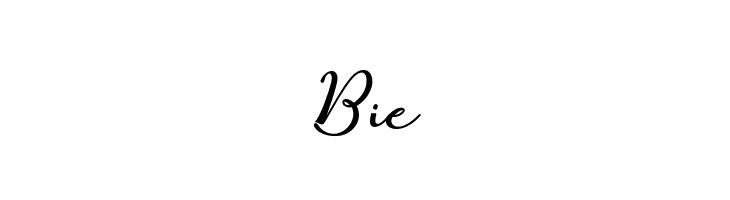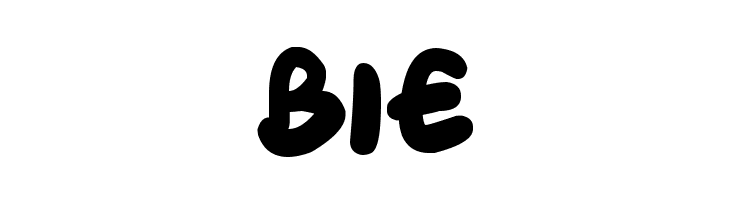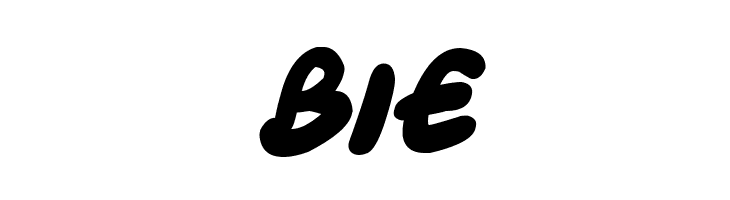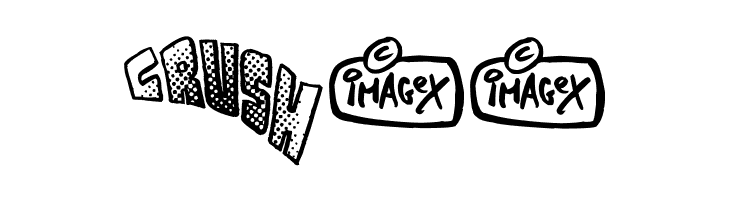
Bold, italicized font with a dynamic and energetic style.
A bold, distressed font with a rugged, vintage appearance.
A graceful script font with elegant, flowing cursive strokes.
A graceful and elegant script font with flowing, cursive letterforms.
A bold, playful handwritten font with dynamic, irregular letterforms.
( Darrell Flood )
A bold, playful font with a hand-drawn, organic style.
( Darrell Flood )
A bold, italic script font with a handwritten, flowing style.
( David Engelby )
A modern, elegant font with clean lines and a sophisticated appearance.
A lively comic-style font featuring dynamic onomatopoeic words and symbols.